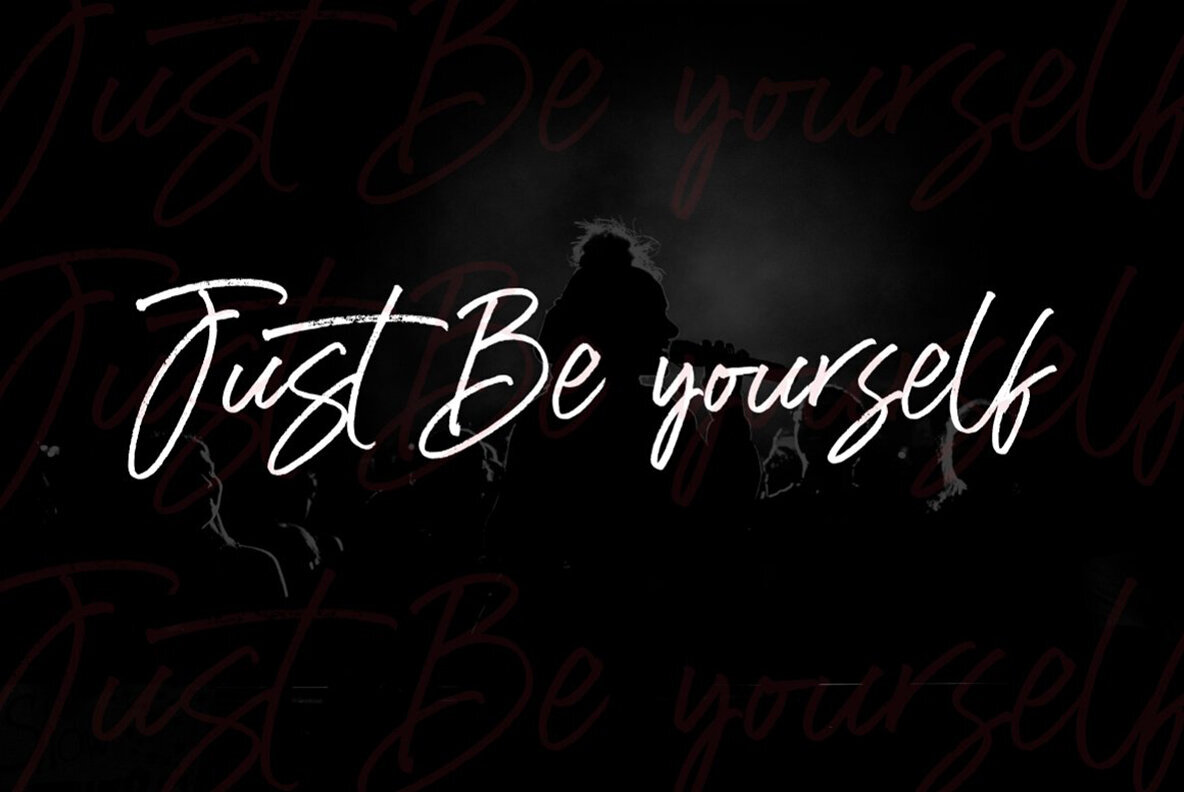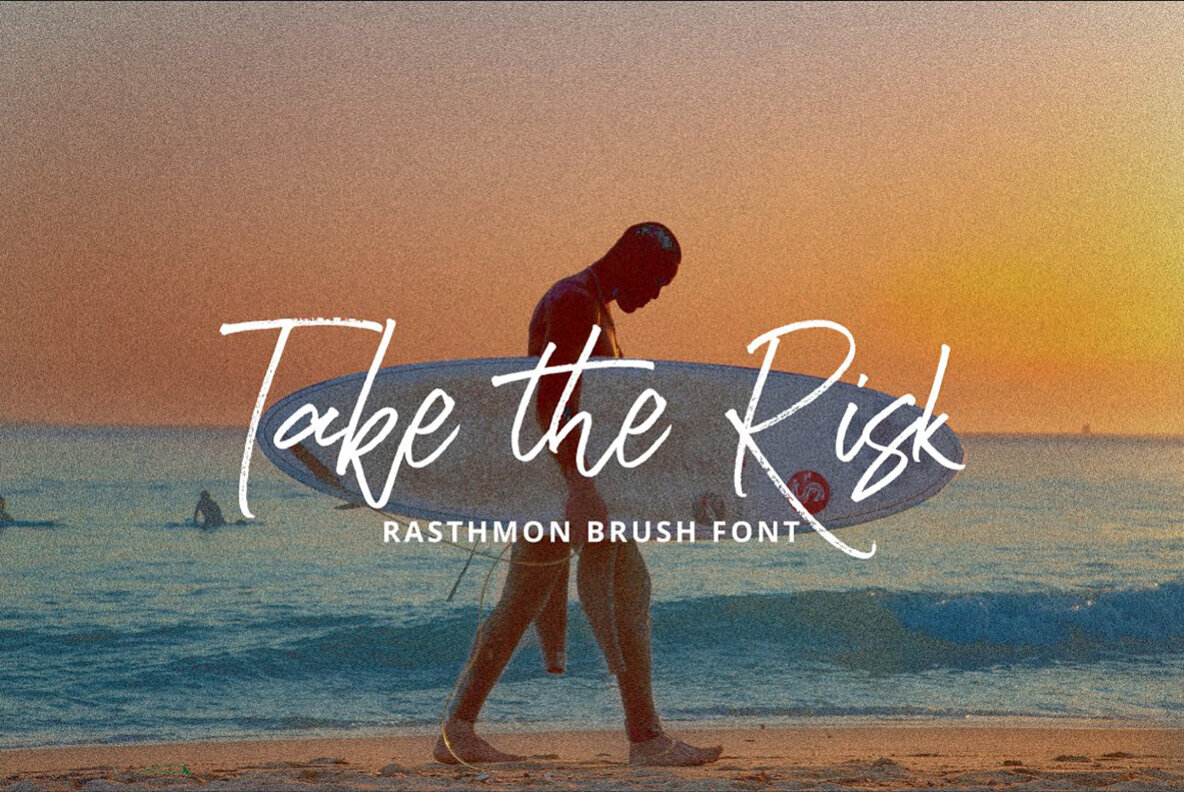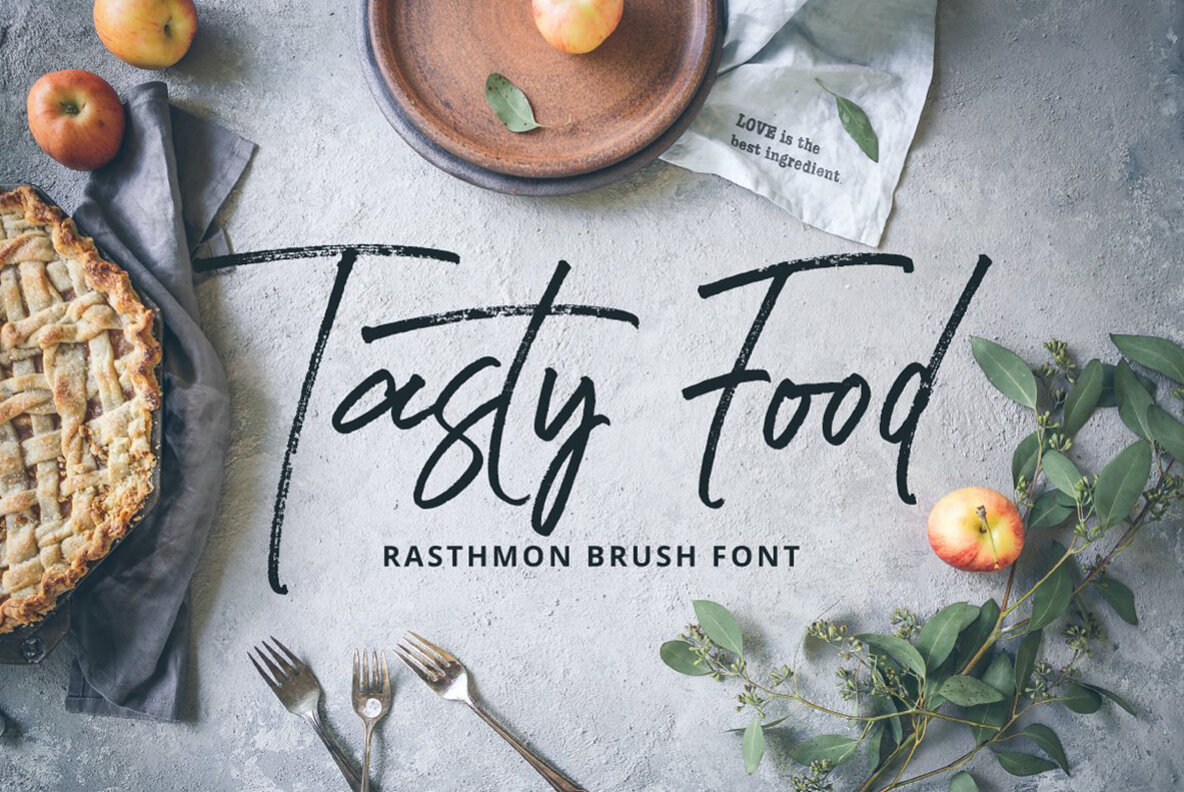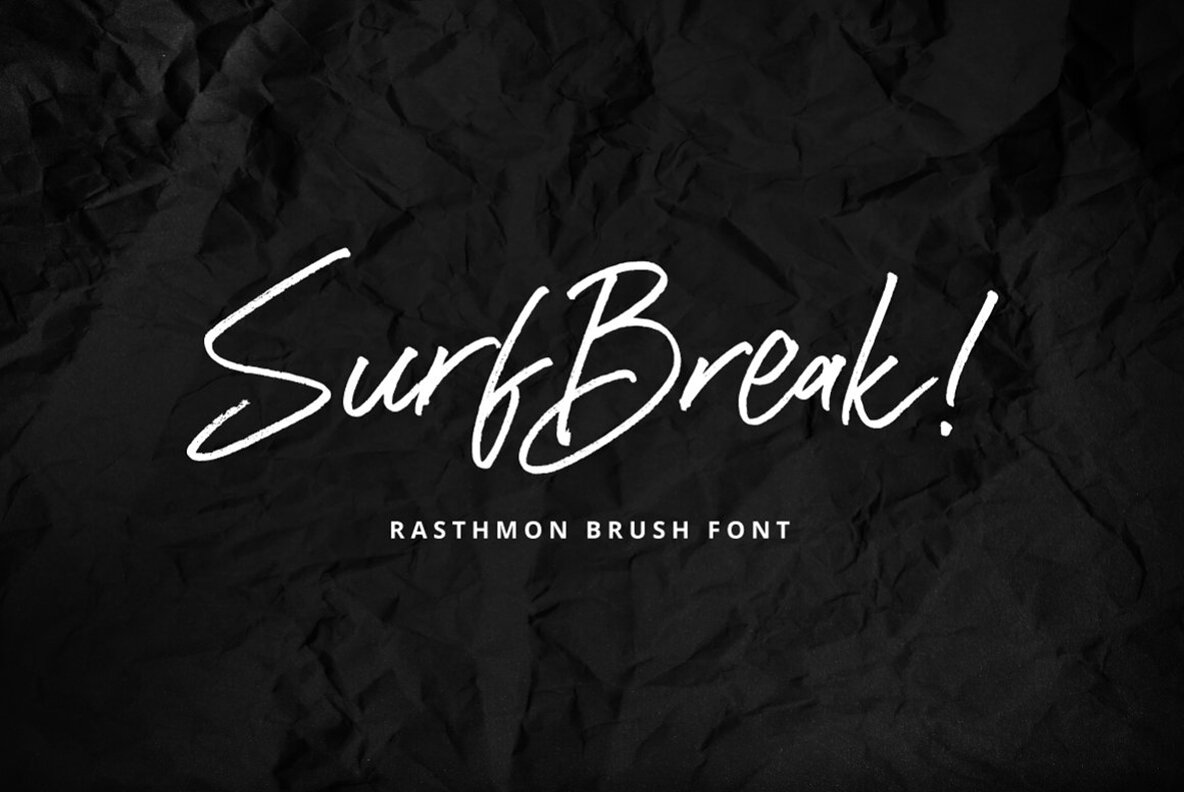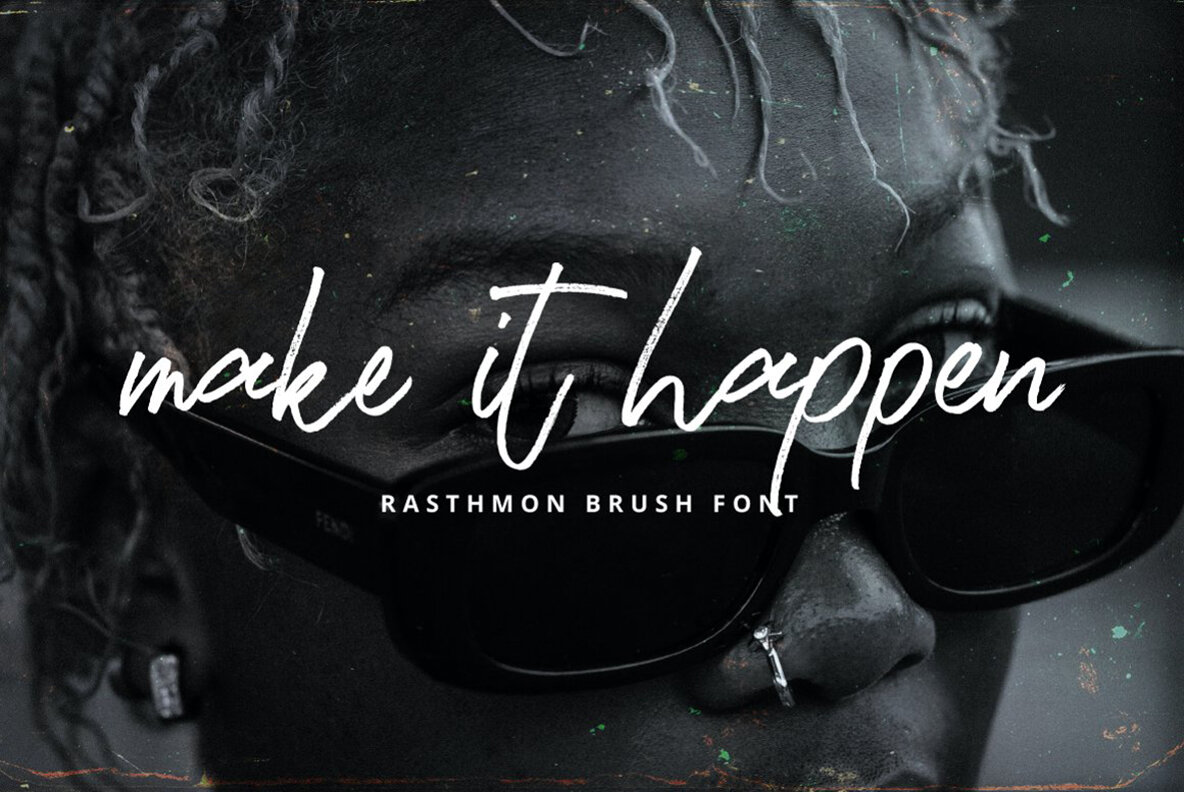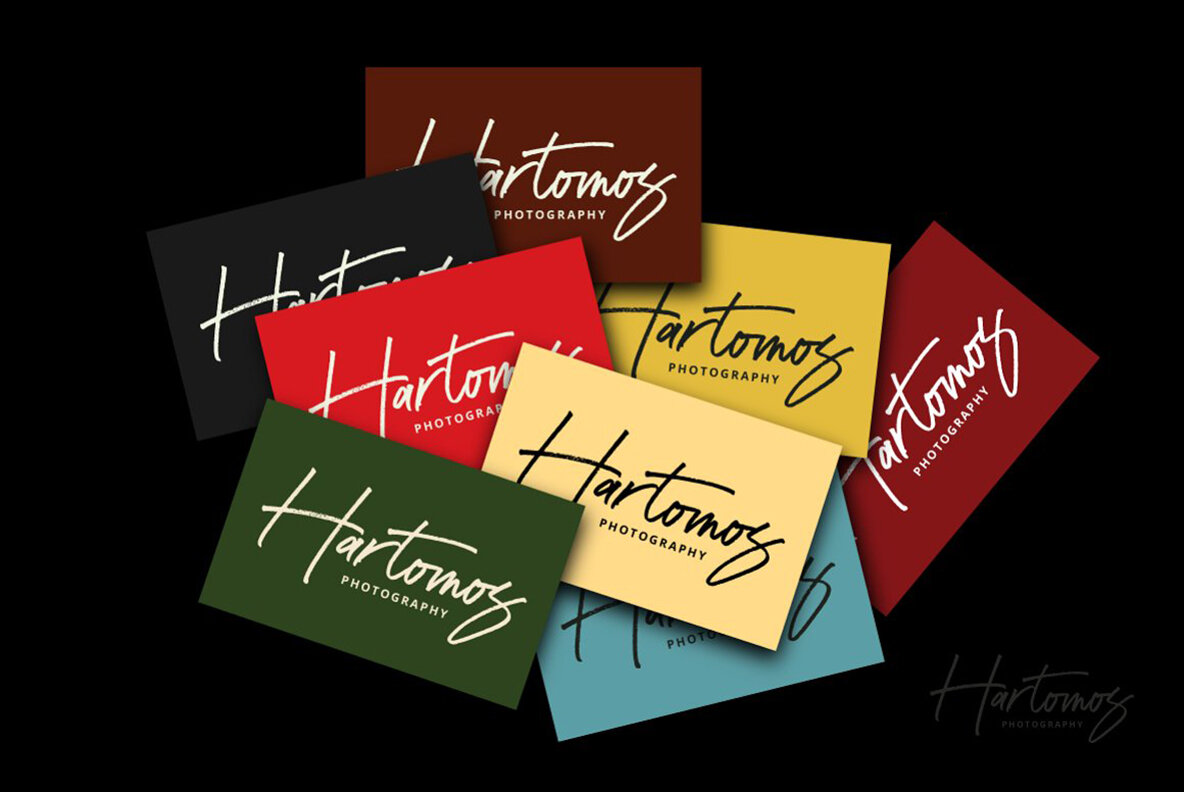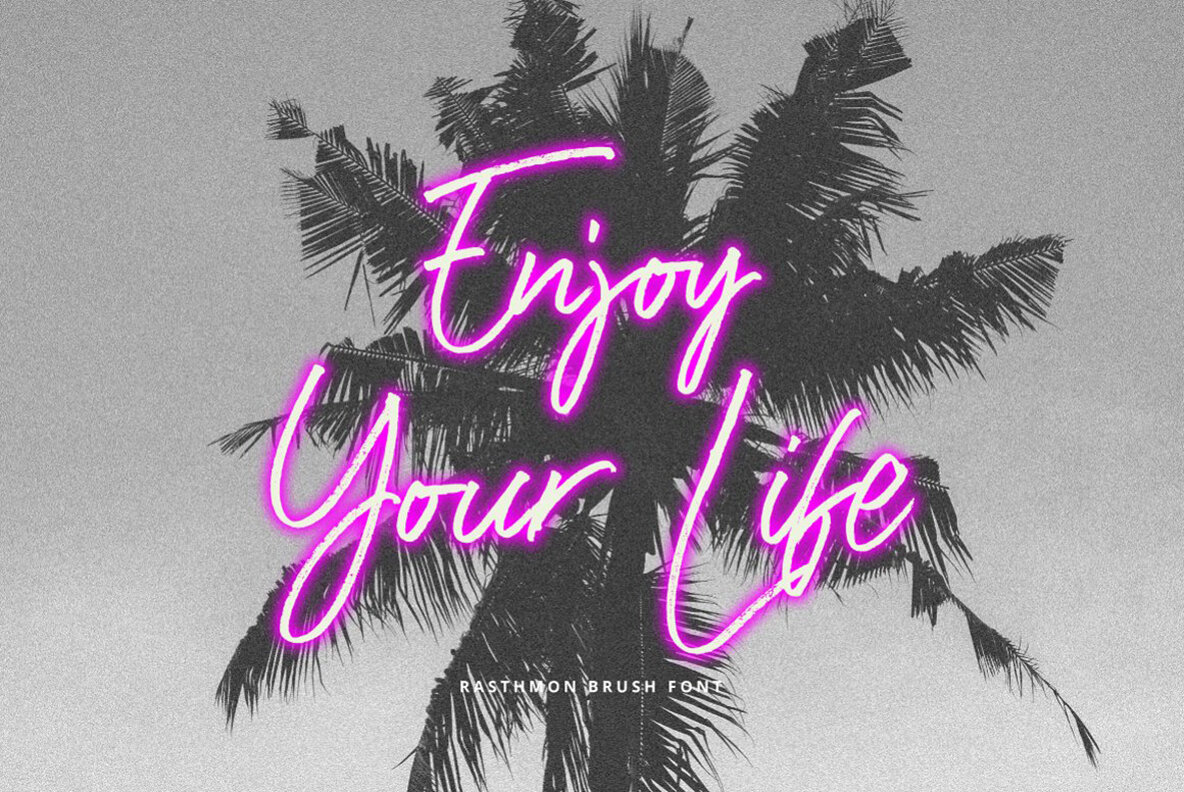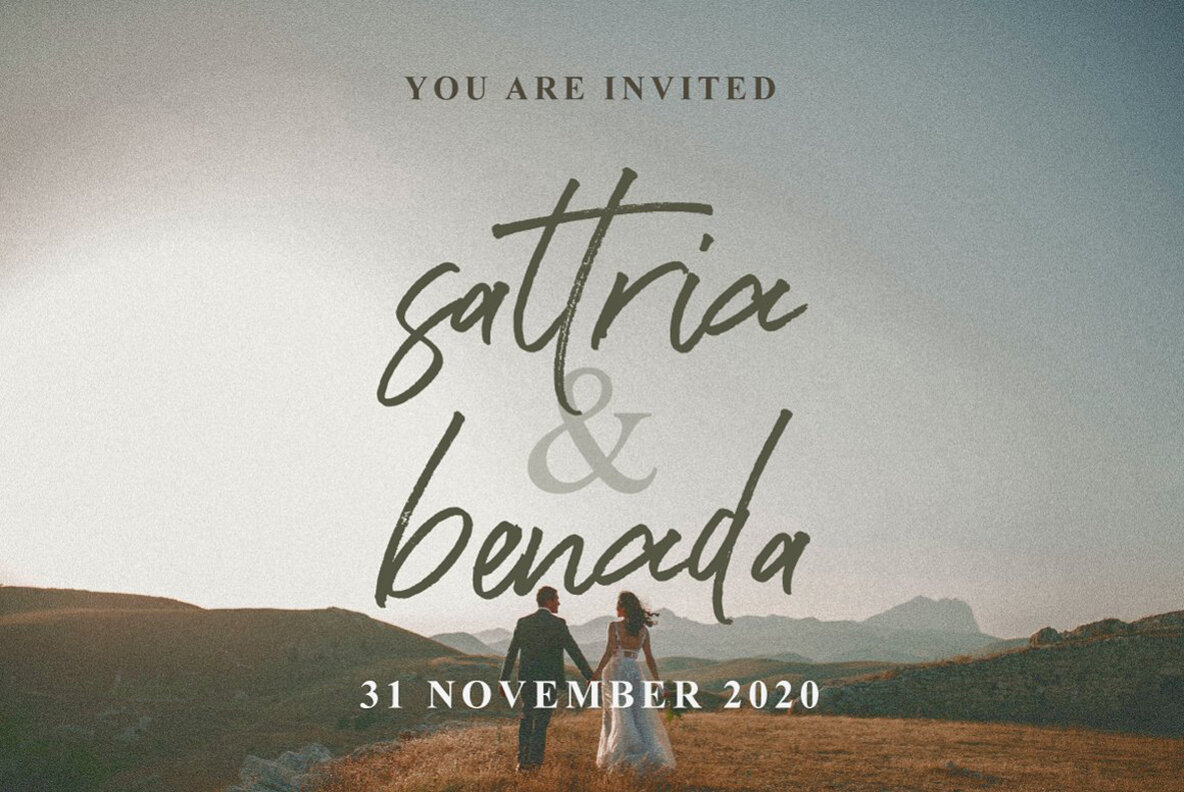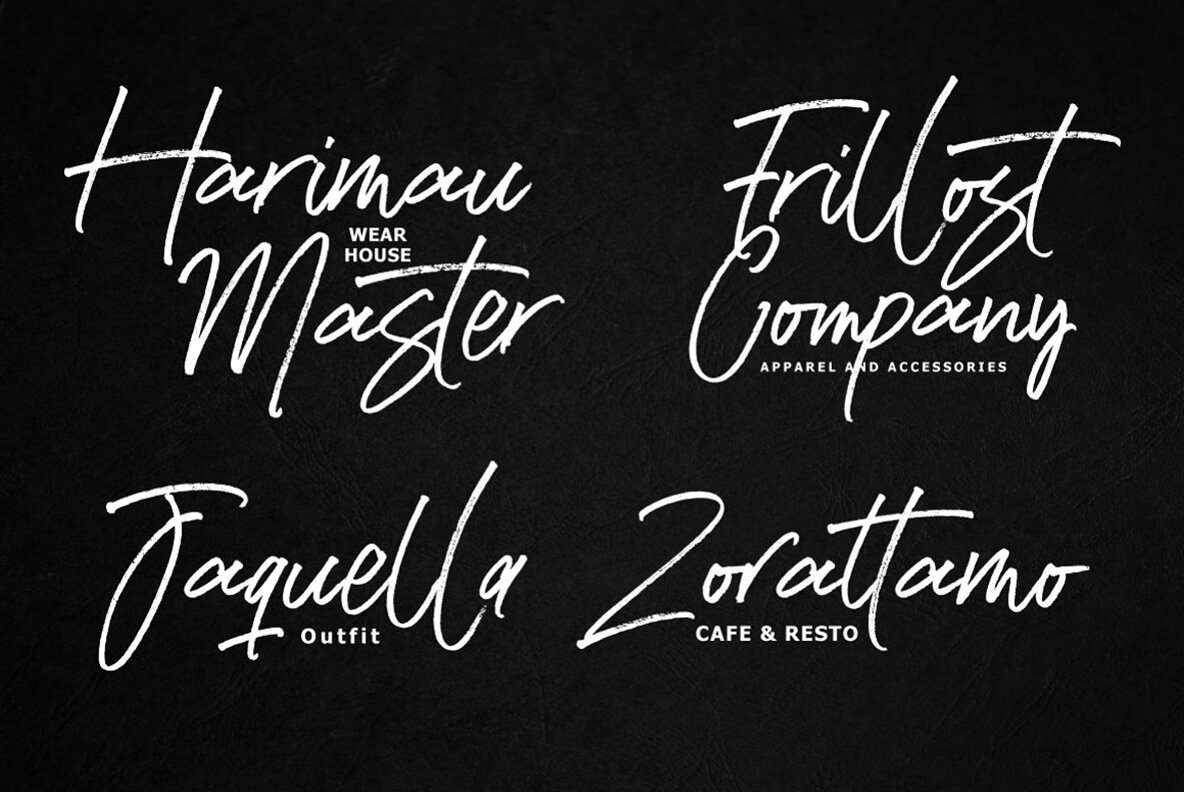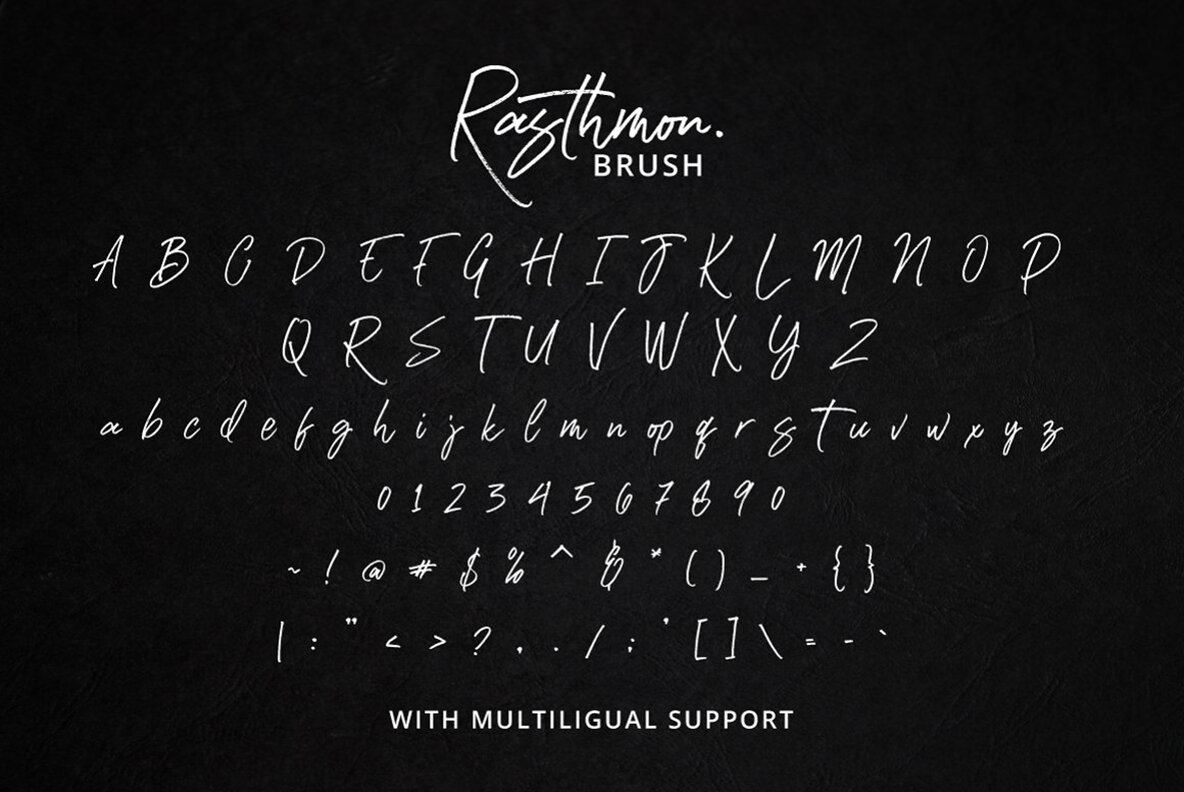
Rasthmon Brush Font
Rasthmon Brush
Rasthmon Brush is a typeface characterized by its authentic dry brush imperfections and a lively, bouncy baseline. This font is perfectly paired with a complimentary marker font and includes a handy set of bonus swashes. It is ideal for use in logos, handwritten quotes, product packaging, headers, posters, merchandise, social media, and greeting cards.Rasthmon Brush: A Dynamic Typeface with Authentic Brush Strokes